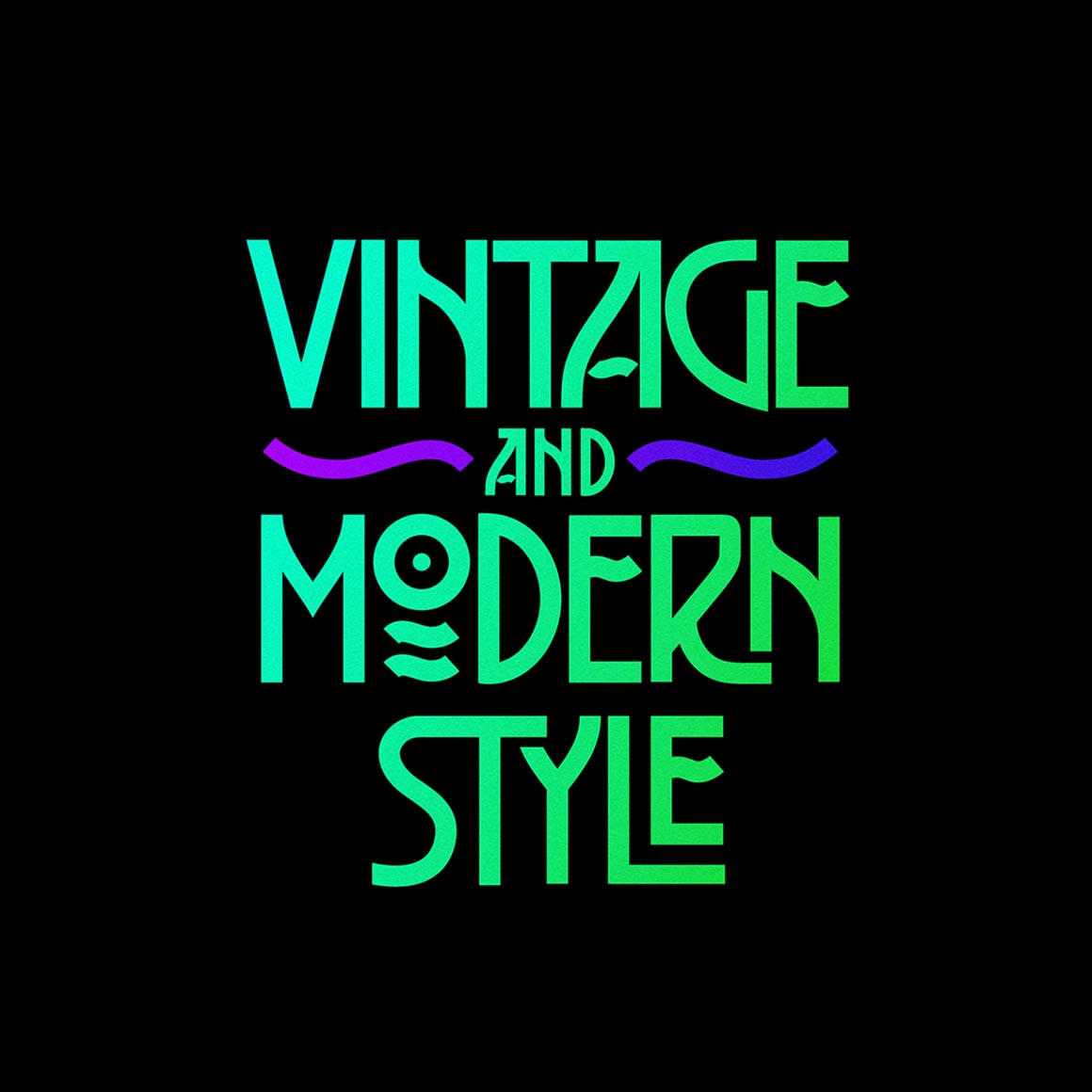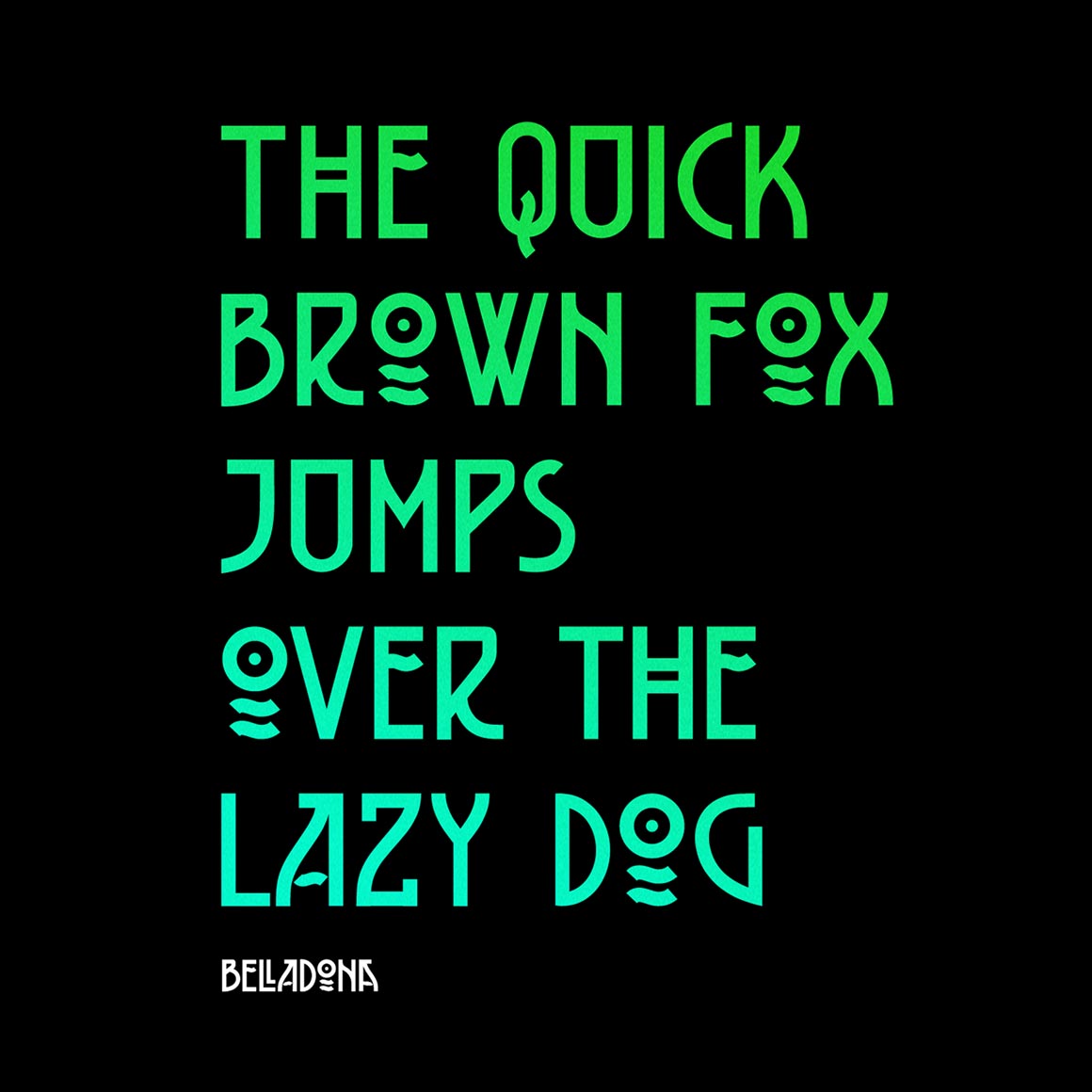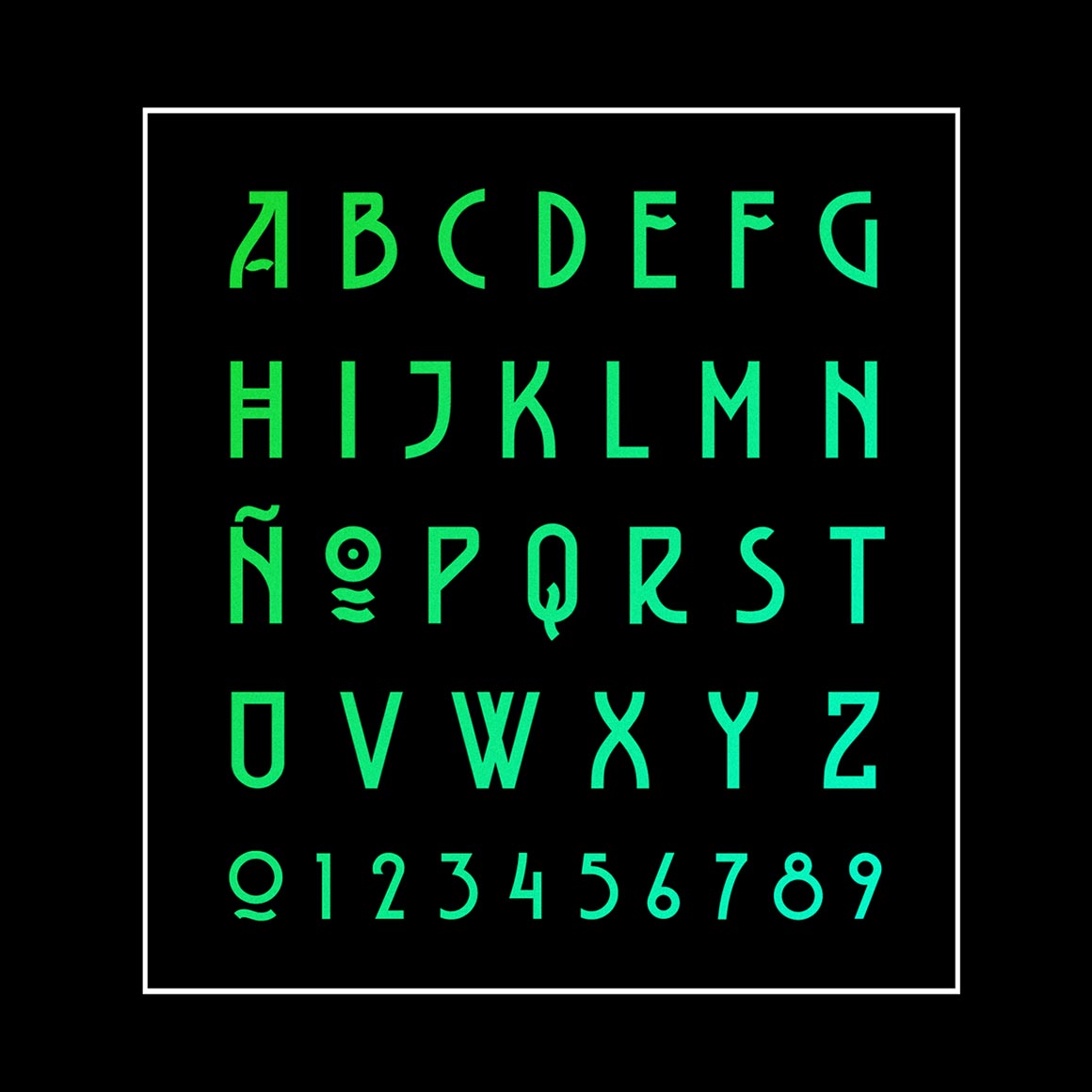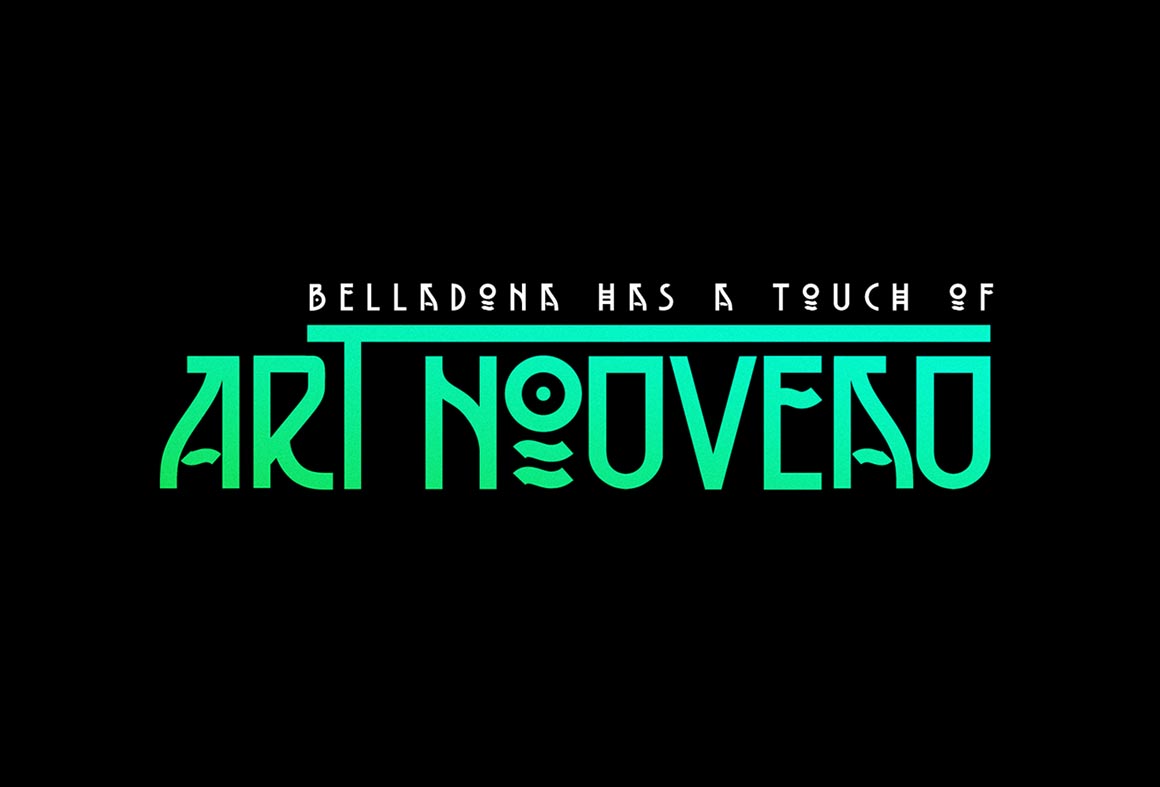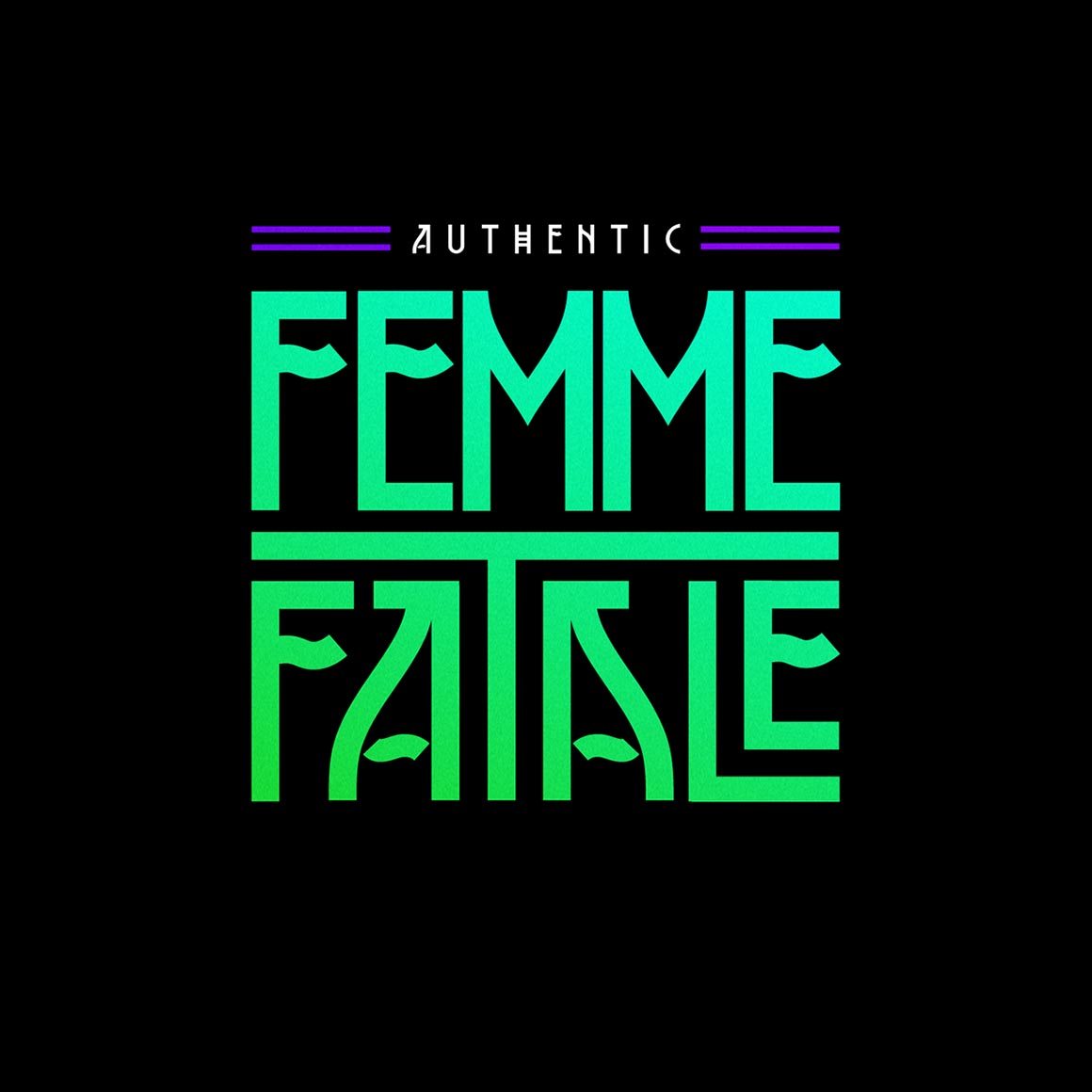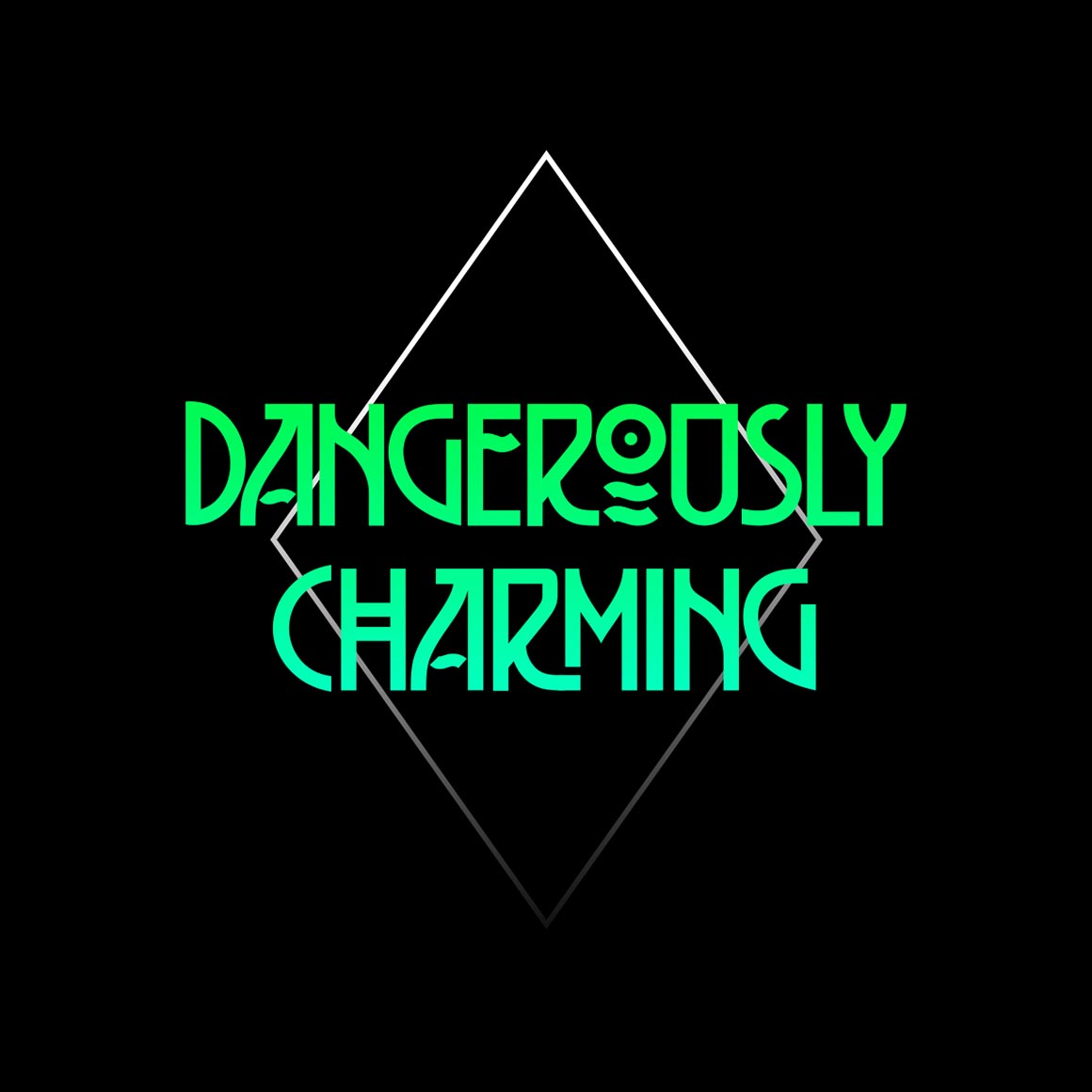
Belladona – Free Art Nouveau Font
This cool art nouveau style font is from Tano Veron. Great for your new vintage style projects. Download and enjoy 😉